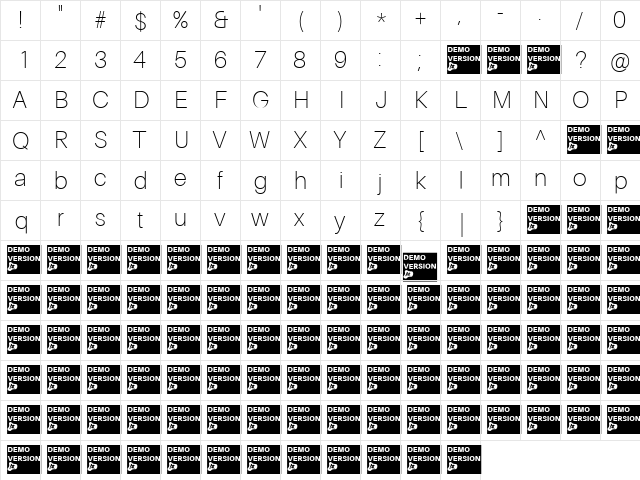
Finis Grotesk DEMO Thin Regular
Finis Grotesk DEMO Thin takes a clean, functional approach — its unadorned letterforms prioritise legibility and work reliably across screen and print environments. The delicate stroke weight brings airiness and refinement to layouts.
Ideal for fashion and beauty branding, minimal editorial layouts, and premium digital experiences.
Font Pairing: Pair Finis Grotesk DEMO Thin with a medium or bold serif for headlines — the weight contrast creates an elegant, high-end feel.
Pro Tip: Avoid using Finis Grotesk DEMO Thin at very small sizes where its slender strokes can disappear. It performs best at medium to large sizes.